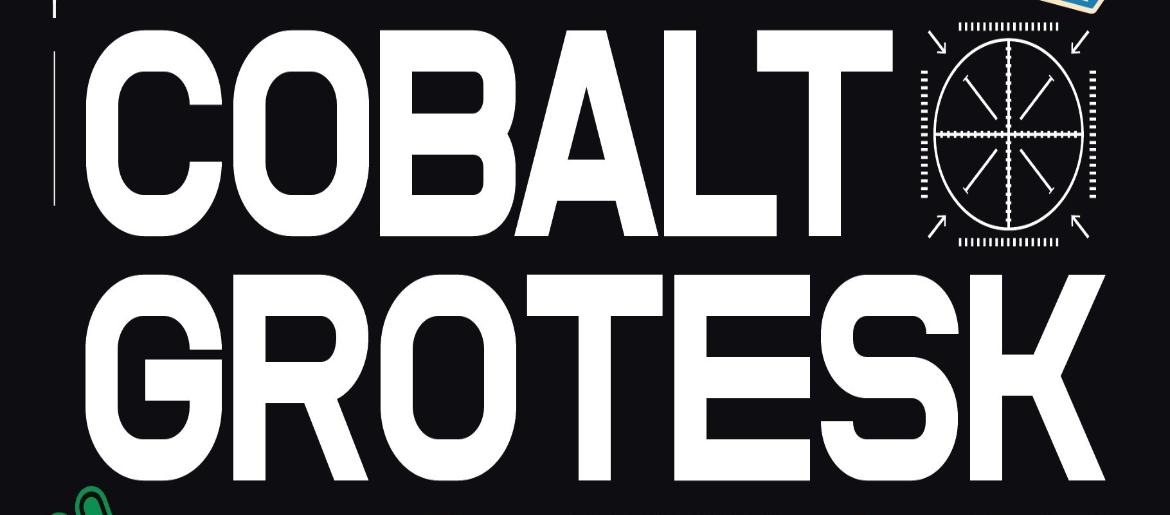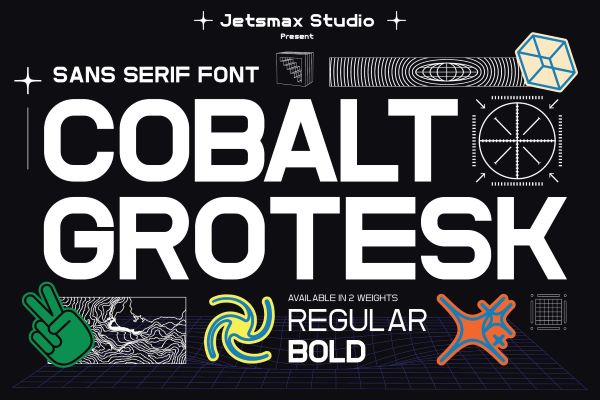
Cobalt Grotesk Font
Cobalt Grotesk Font is a modern sans serif typeface designed with clarity, balance, and contemporary style. Featuring two essential weights, Regular and Bold, it offers flexibility for strong headlines and readable body text. Ideal for branding, editorial layouts, and digital interfaces, it provides clean versatility and stands as a reliable option among professional and functional free fonts collections.
➤ Font Name: Cobalt Grotesk
➤ Designer: Ril Anwar
➤ Style: Sans Serif